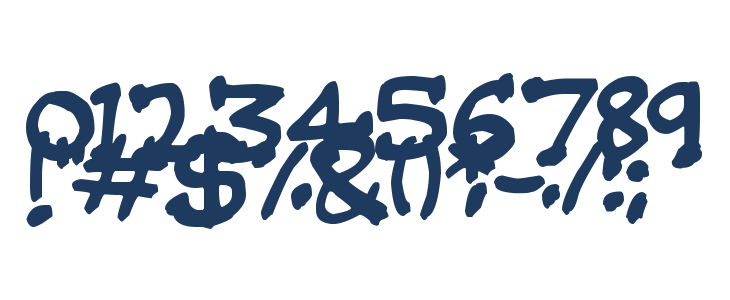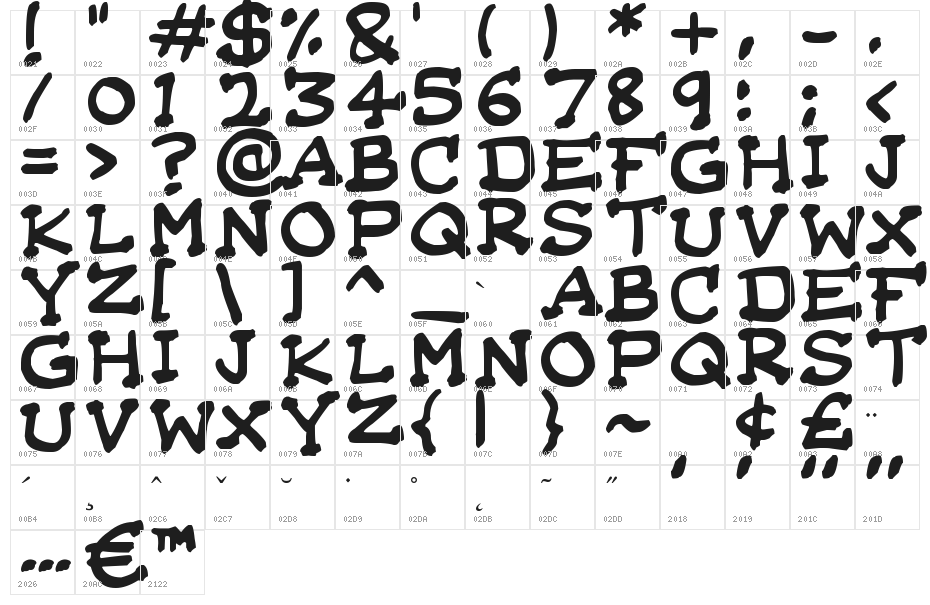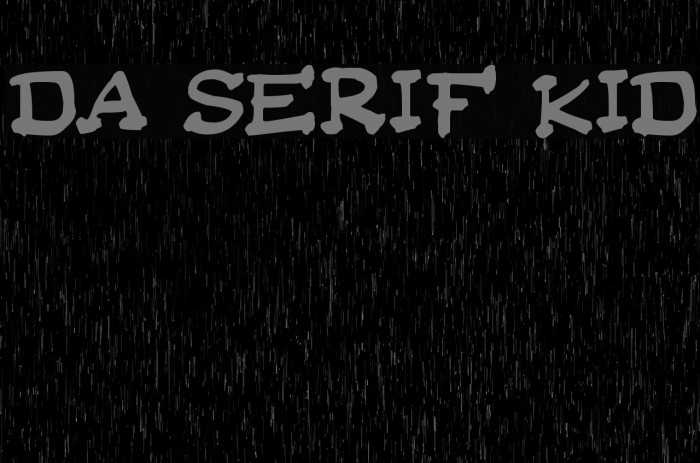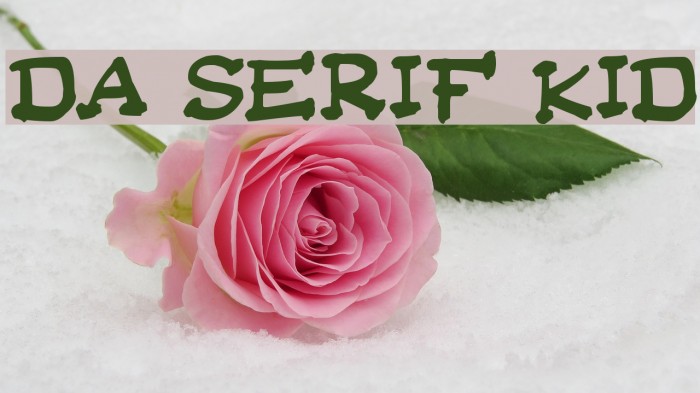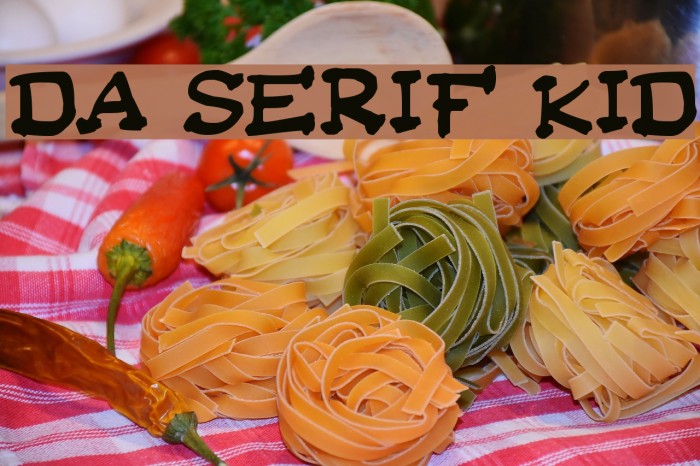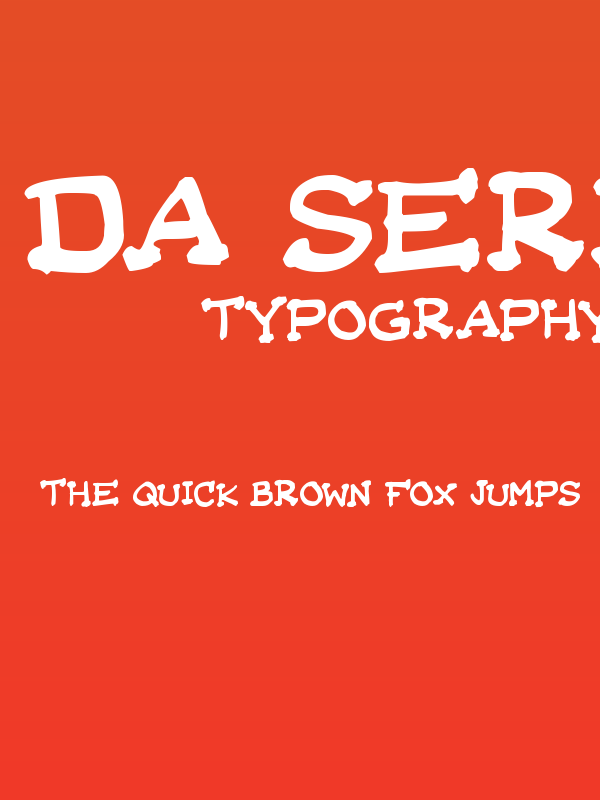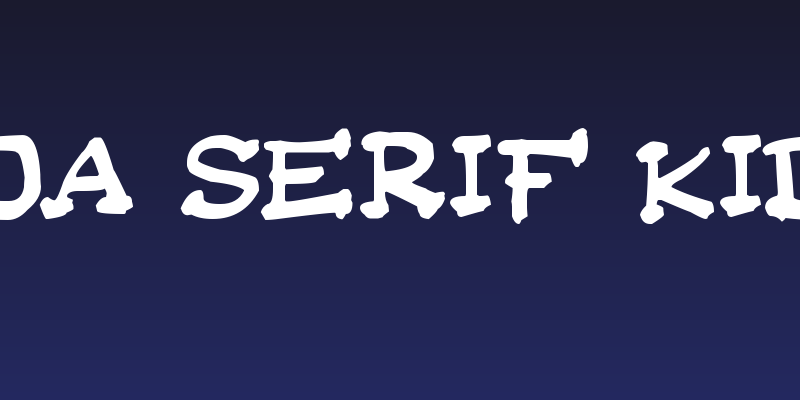
Da Serif Kid Font
Da Serif Kid Description
This playful and bold font features a unique, hand-drawn style with exaggerated serifs and a slightly irregular baseline, giving it a whimsical and informal appearance. The characters are thick and rounded, with a consistent stroke width that adds to its boldness. The uppercase and lowercase letters maintain a cohesive look, while the numerals and special characters are designed to match the font's overall playful aesthetic. This font is perfect for projects that require a fun and engaging visual element, such as children's books, comic strips, or playful branding.